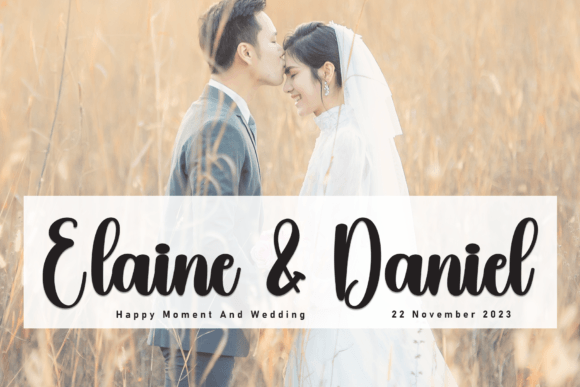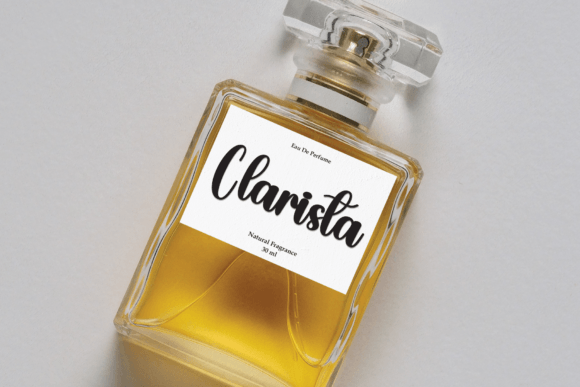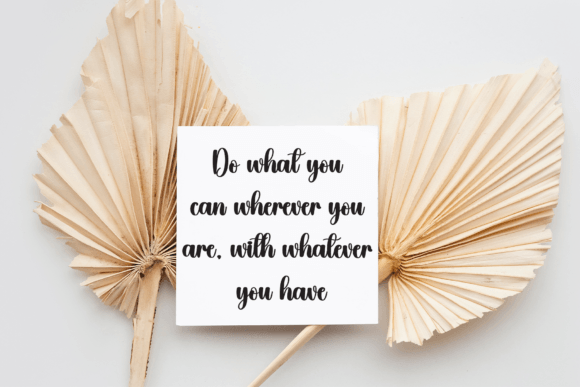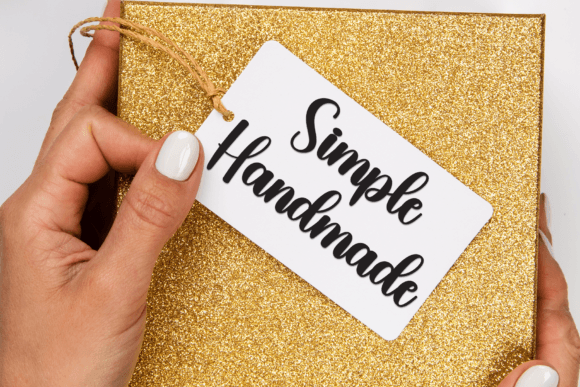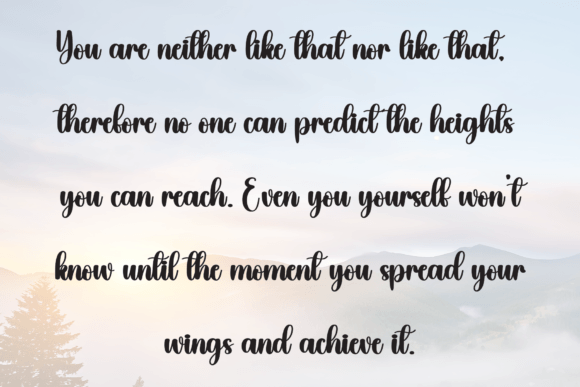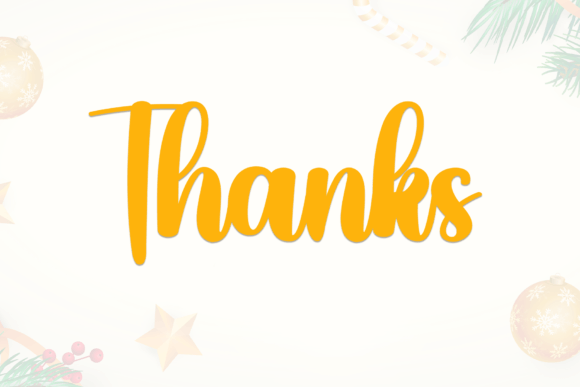
Introducing Christmas Baubles Font: A Sweet and Friendly Handwritten Delight
Are you looking for a font that captures the essence of the holiday season? Look no further than Christmas Baubles Font! This sweet and friendly handwritten font is perfect for designers and crafters who want to add a touch of festive flair to their projects. With its natural and unique style, Christmas Baubles Font is incredibly versatile and can be used for a wide range of designs.
The Perfect Font for Holiday Designs
Christmas Baubles Font is a handwritten font that exudes a sense of warmth and friendliness. Its unique style is reminiscent of handwritten notes and decorations, making it perfect for holiday designs, such as Christmas cards, gift tags, and festive posters. The font’s natural and effortless look makes it easy to pair with other fonts and design elements, allowing you to create stunning and cohesive designs.
Endless Possibilities with Christmas Baubles Font
The only limit to using Christmas Baubles Font is your imagination! This versatile font can be used for a wide range of designs, from:
- Gift tags and wrapping paper
- Festive posters and flyers
Whether you’re a designer, crafter, or DIY enthusiast, Christmas Baubles Font is the perfect addition to your design toolkit. Its unique style and versatility make it easy to use for a wide range of projects, from simple crafts to complex designs.
Key Features of Christmas Baubles Font
So, what makes Christmas Baubles Font so special? Here are some of its key features:
- Sweet and friendly style: Christmas Baubles Font has a warm and inviting style that’s perfect for holiday designs.
- Natural and unique look: The font’s handwritten style gives it a natural and unique look that’s sure to stand out.
- Versatile and adaptable: Christmas Baubles Font can be used for a wide range of designs, from simple crafts to complex designs.
- Easy to pair with other fonts: The font’s effortless look makes it easy to pair with other fonts and design elements.
Tips for Using Christmas Baubles Font
Here are some tips for using Christmas Baubles Font in your designs:
- Use it for headlines and titles: Christmas Baubles Font is perfect for headlines and titles, where its unique style can really shine.
- Pair it with other fonts: Experiment with pairing Christmas Baubles Font with other fonts and design elements to create stunning and cohesive designs.
- Use it for DIY projects: Christmas Baubles Font is perfect for DIY projects, such as crafting and scrapbooking.
- Experiment with different colors: Try using Christmas Baubles Font with different colors and textures to add depth and interest to your designs.
Christmas Baubles Font is a sweet and friendly handwritten font that’s perfect for designers and crafters who want to add a touch of festive flair to their projects. With its natural and unique style, Christmas Baubles Font is incredibly versatile and can be used for a wide range of designs. Whether you’re creating holiday cards, gift tags, or festive posters, Christmas Baubles Font is the perfect addition to your design toolkit. So why wait? Download Christmas Baubles Font today and let your imagination run wild!